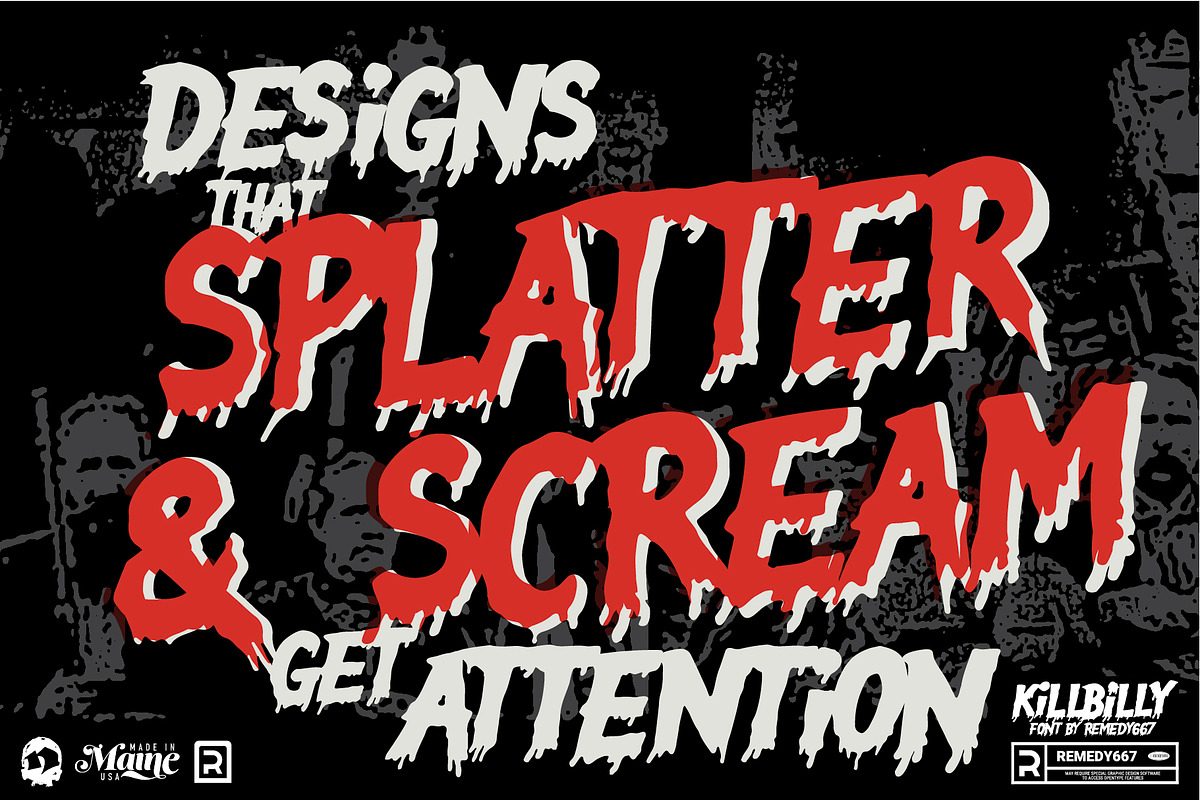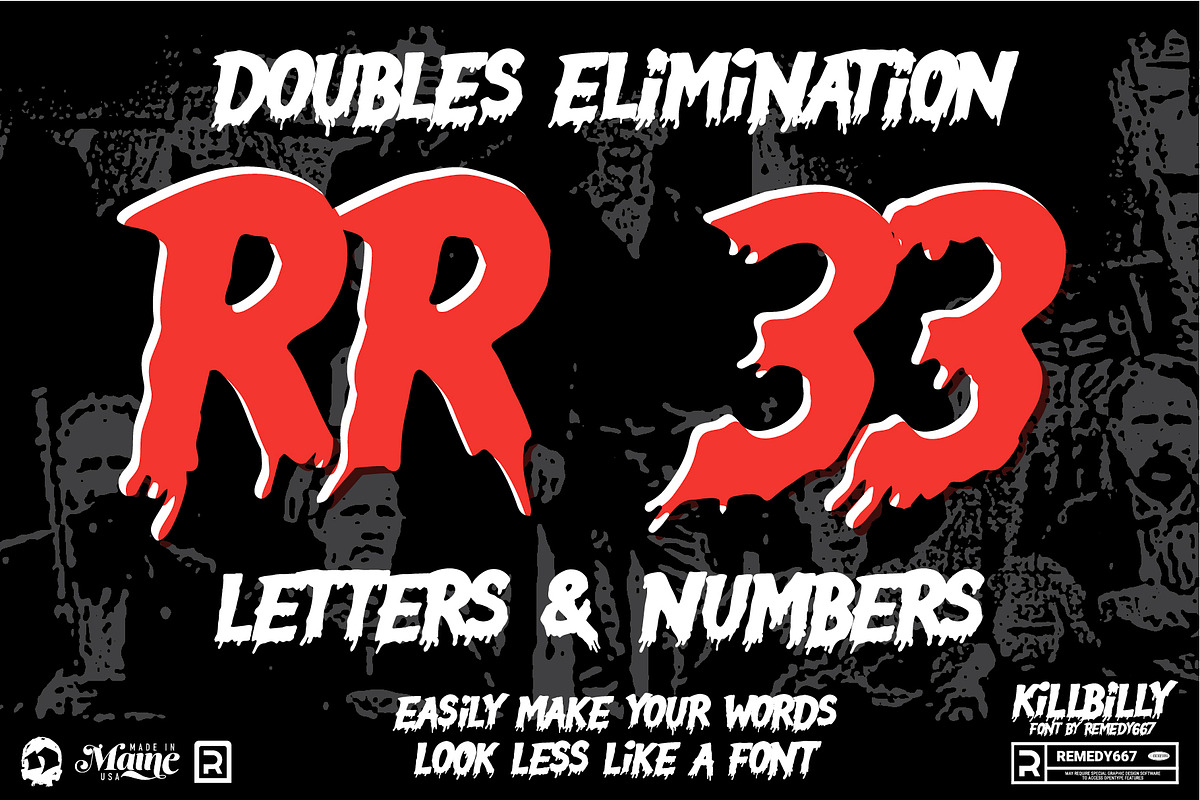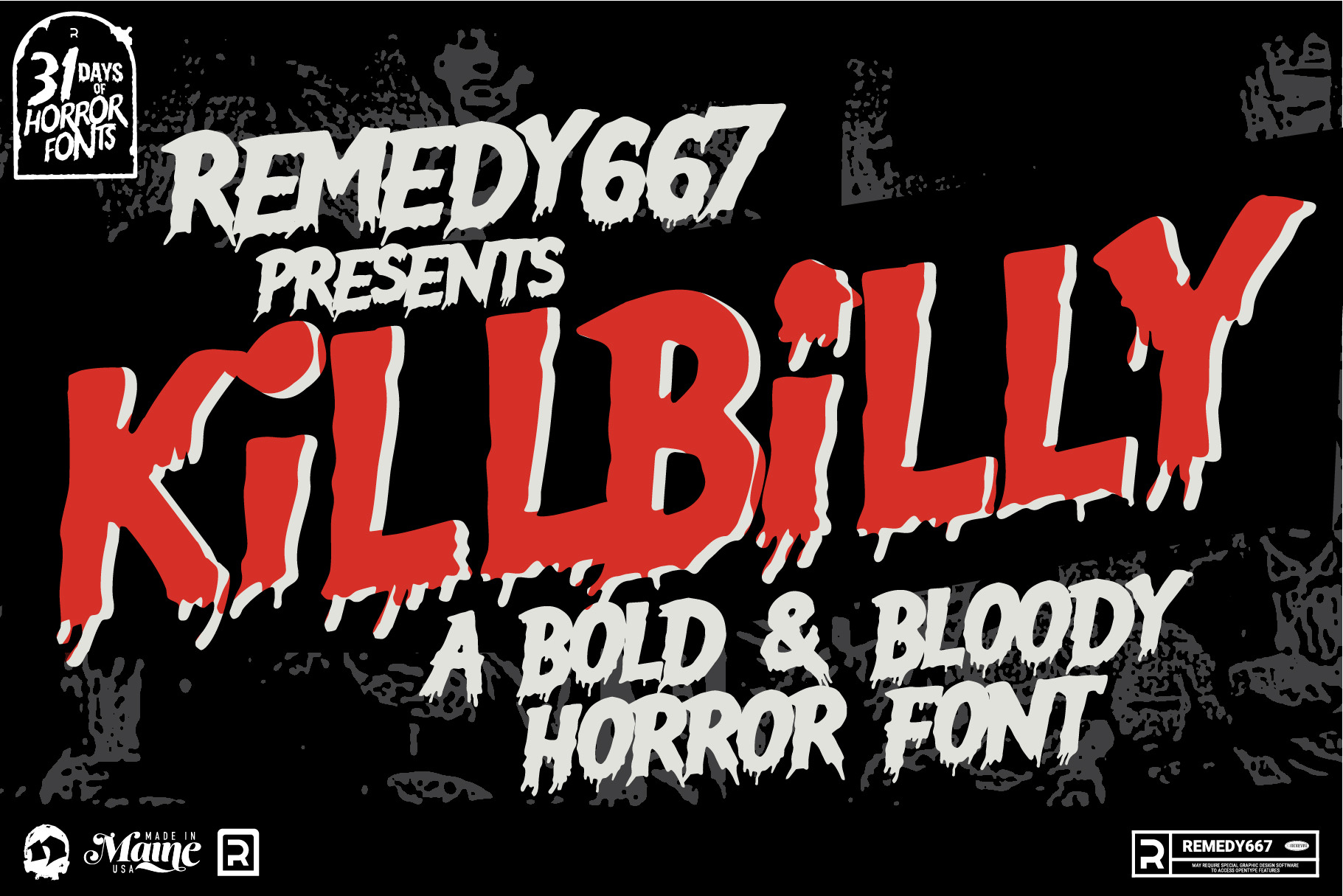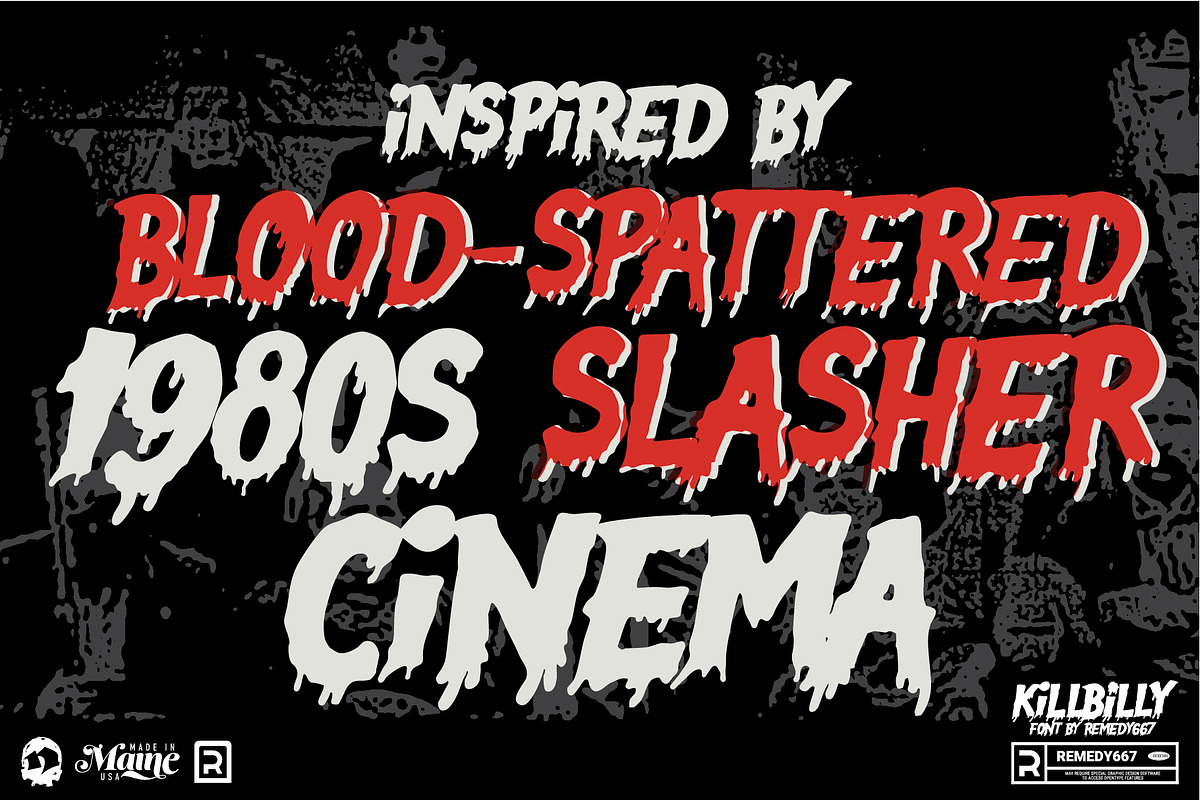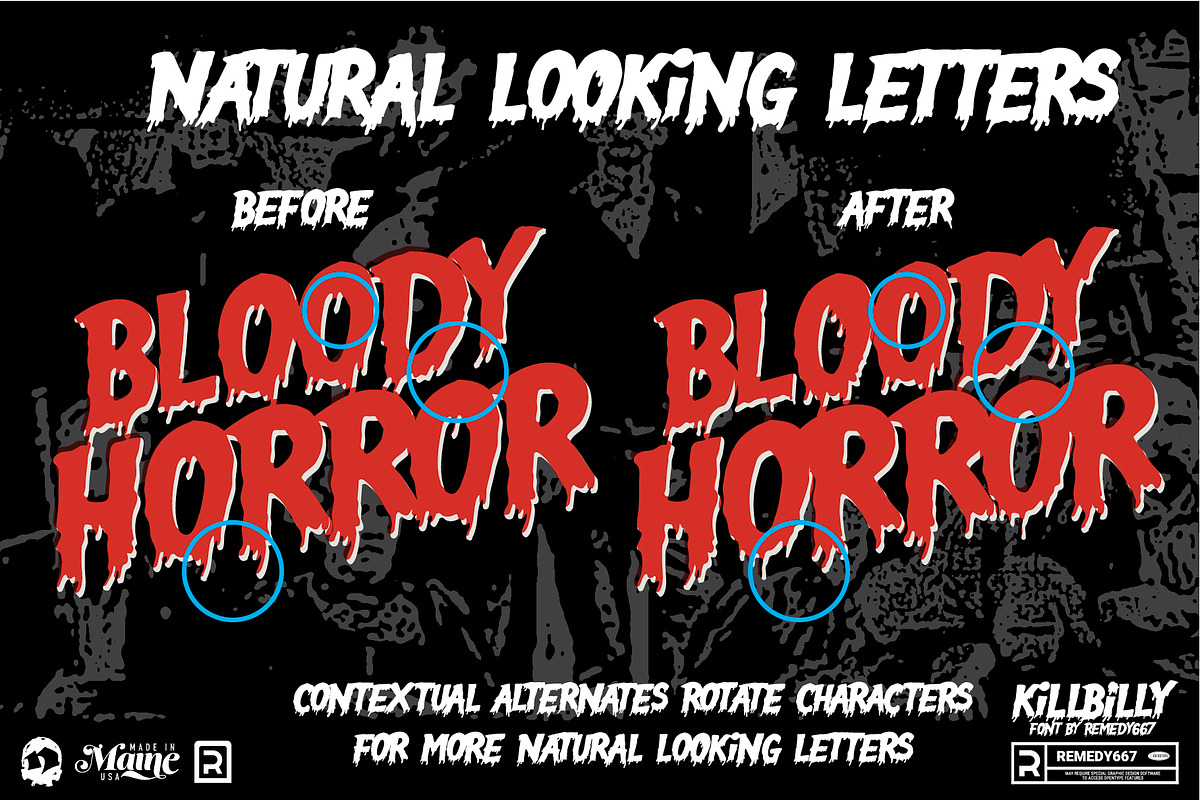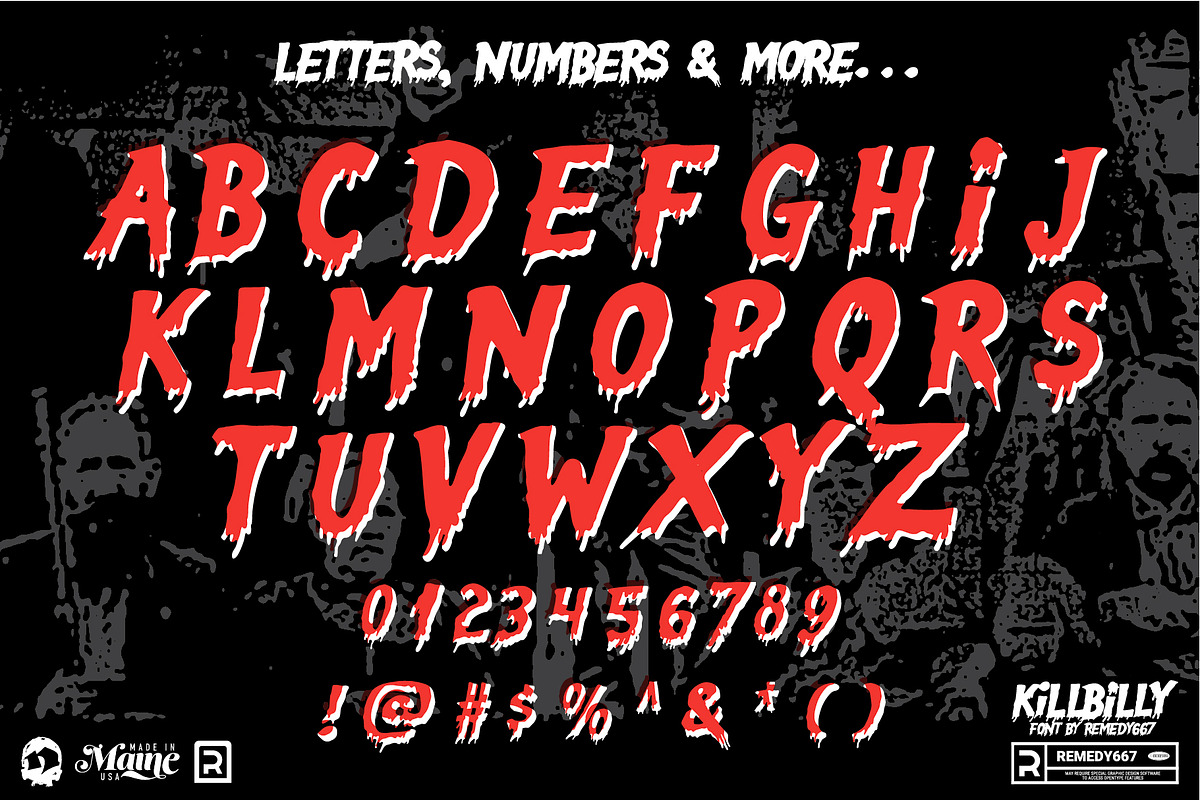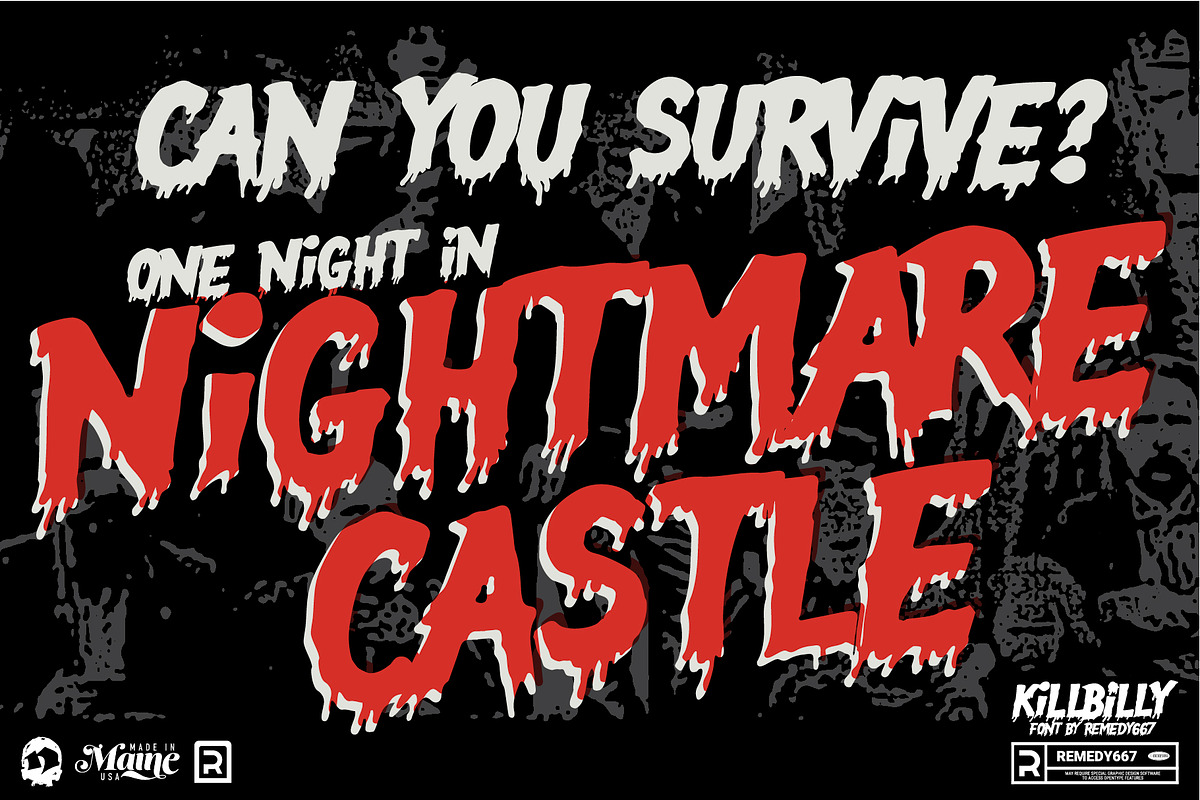
Killbilly - Rotating Horror Font
Straight from the backwoods of brutality comes Killbilly—a slanted, slashing typeface dredged from the blood-spattered heyday of 1980s slasher cinema! Drippy, hand-drawn, and sharpened to a wicked point, this murderous italic display font cuts through your titles like a rusty hatchet through a cabin door.
Let your designs screech, splatter, and scream as Killbilly brings that VHS-era violence right to your layout. Bold, ragged, and wild enough to take extra styling, it’s perfect for posters, titles, and any project that deserves a little… backwoods bite. Carved and unleashed by the fiends at Remedy667!
- Drippy, hand-drawn strokes inspired by 1980s slasher art
- Aggressive italic slant for high-impact horror titles
- Bold, chunky forms ideal for extra styling or heavy effects
- Perfect for posters, VHS tributes, and retro exploitation graphics